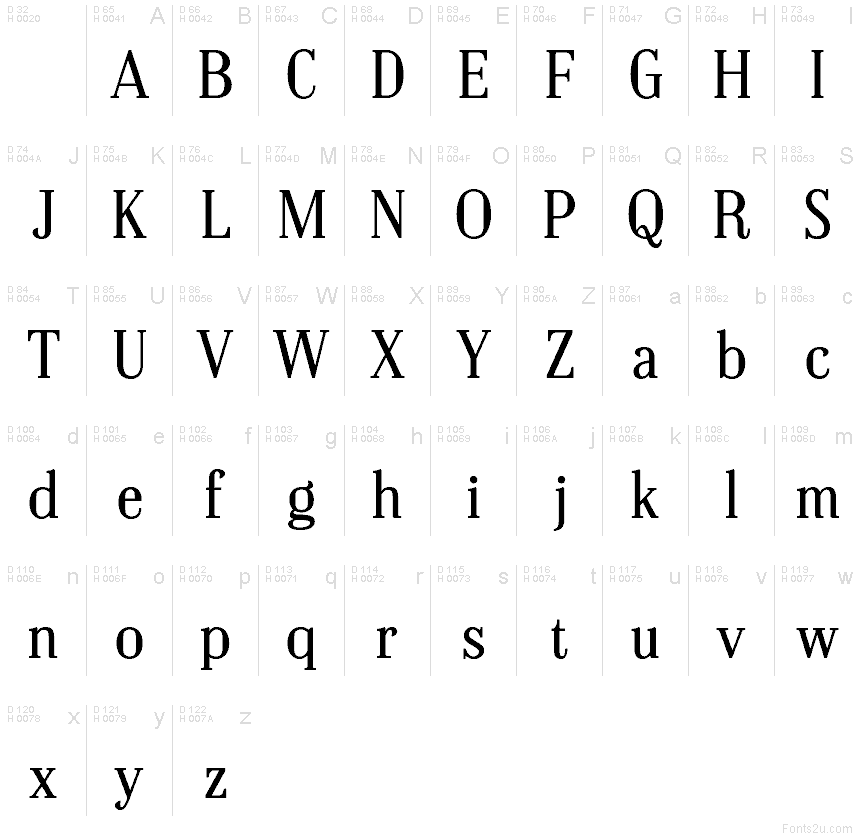
Broquet Regular Demo
Broquet font by Craft Supply Co. is a condensed serif font with a classic, refined appeal. Its stately design reflects traditional elegance, making it a distinguished choice for projects needing sophistication and clarity.
Free to use, Broquet can adorn wedding invitations, museum brochures, academic publications, business cards, menus for fine dining restaurants and countless other professional and personal uses.